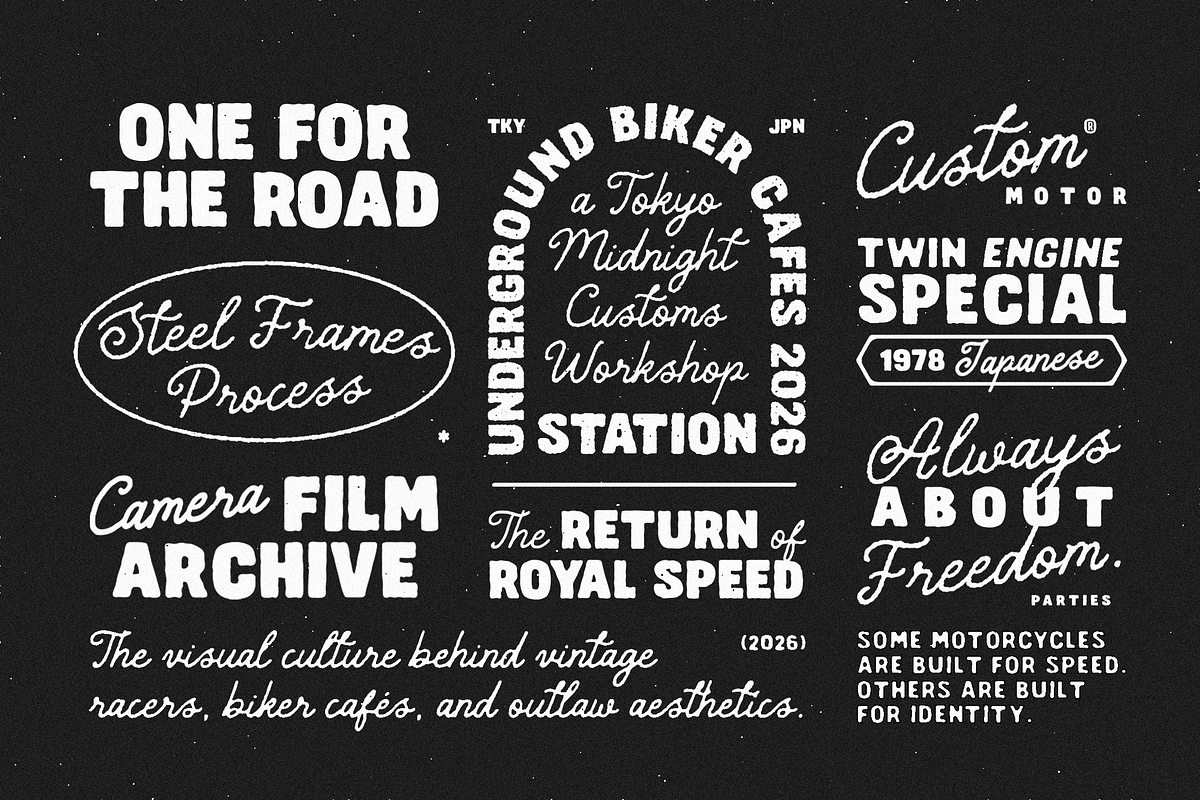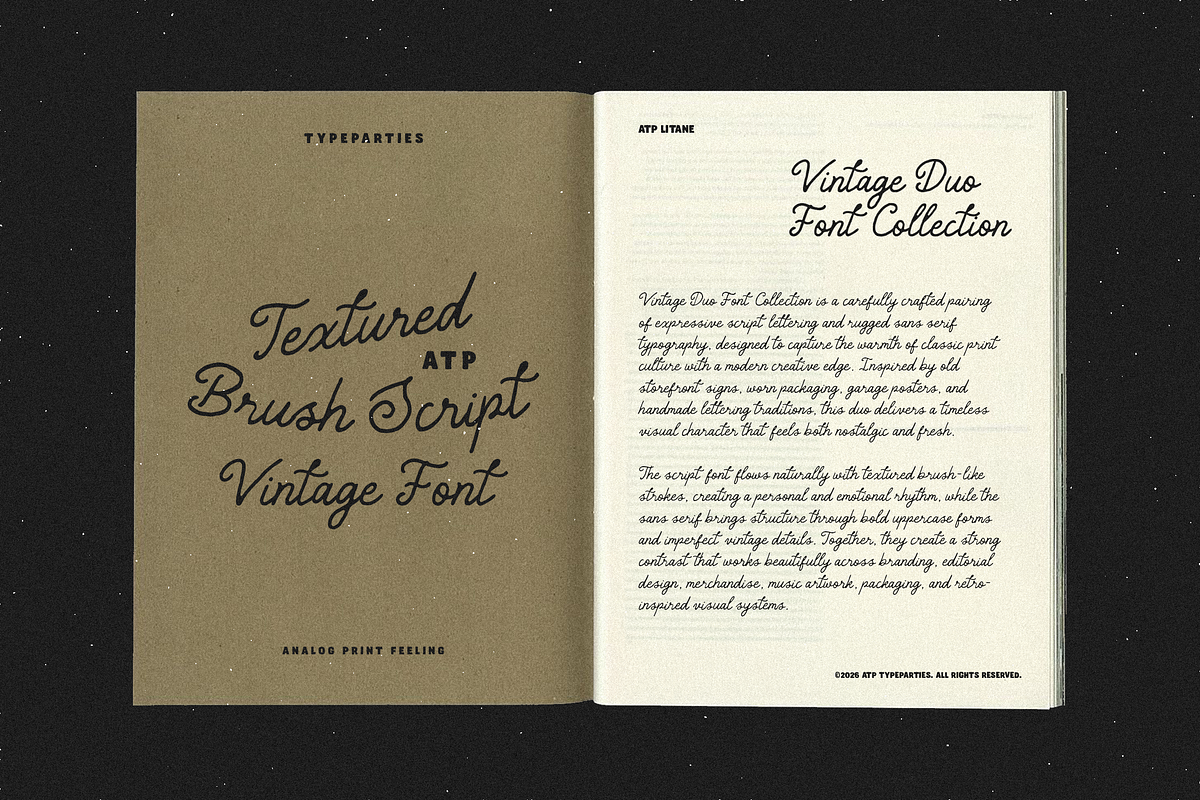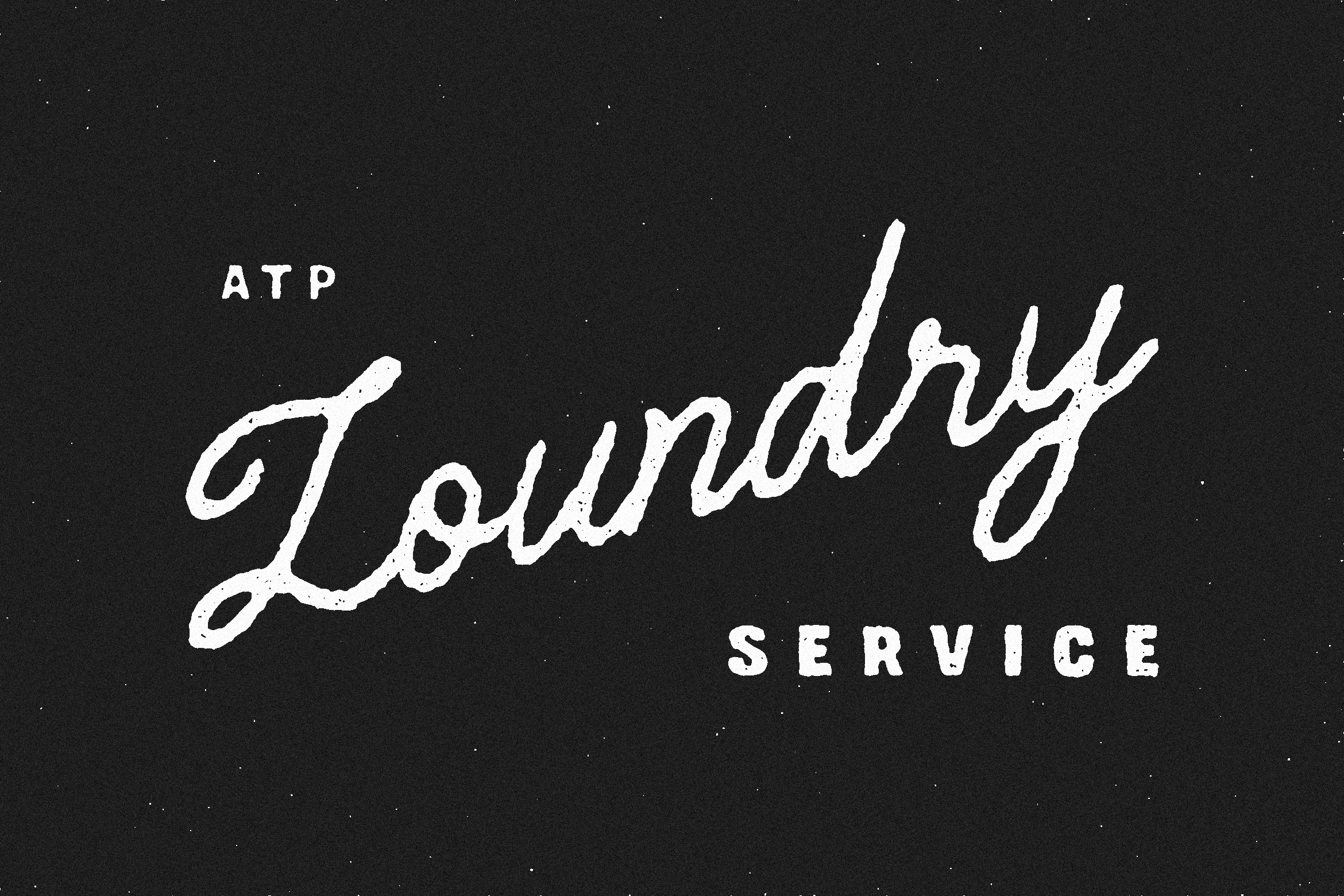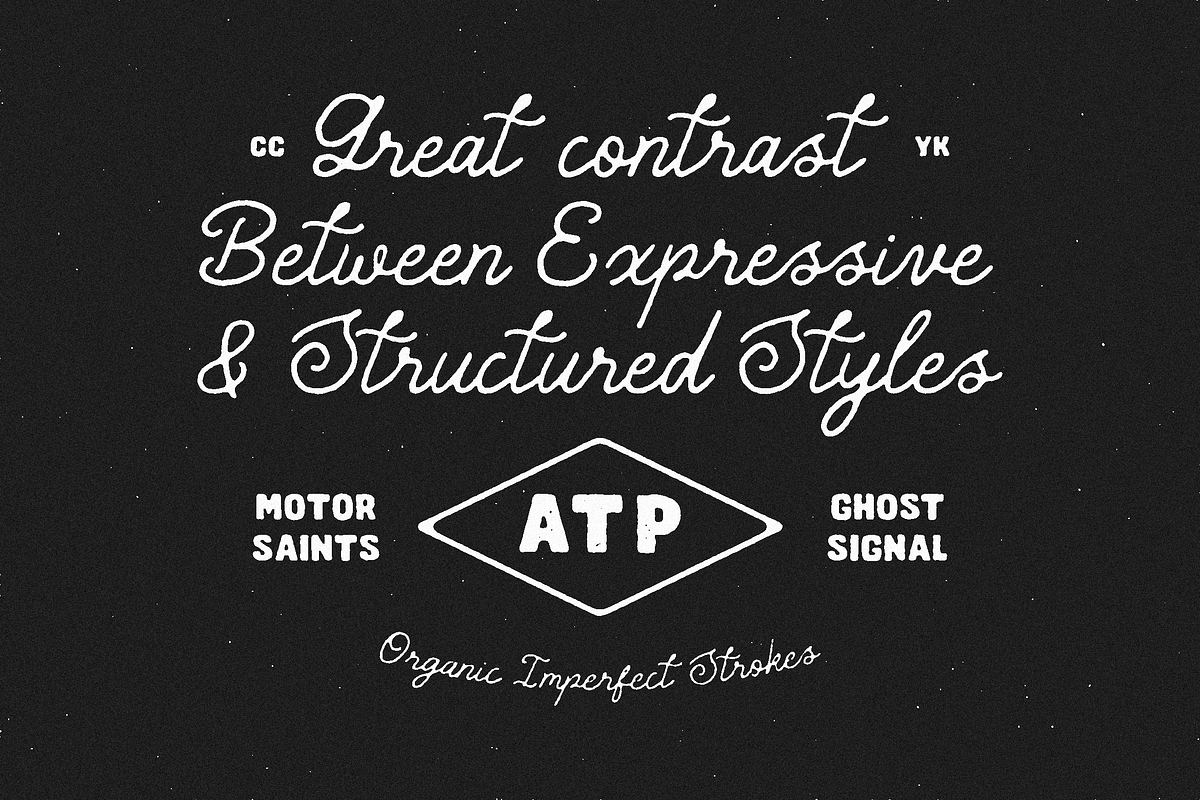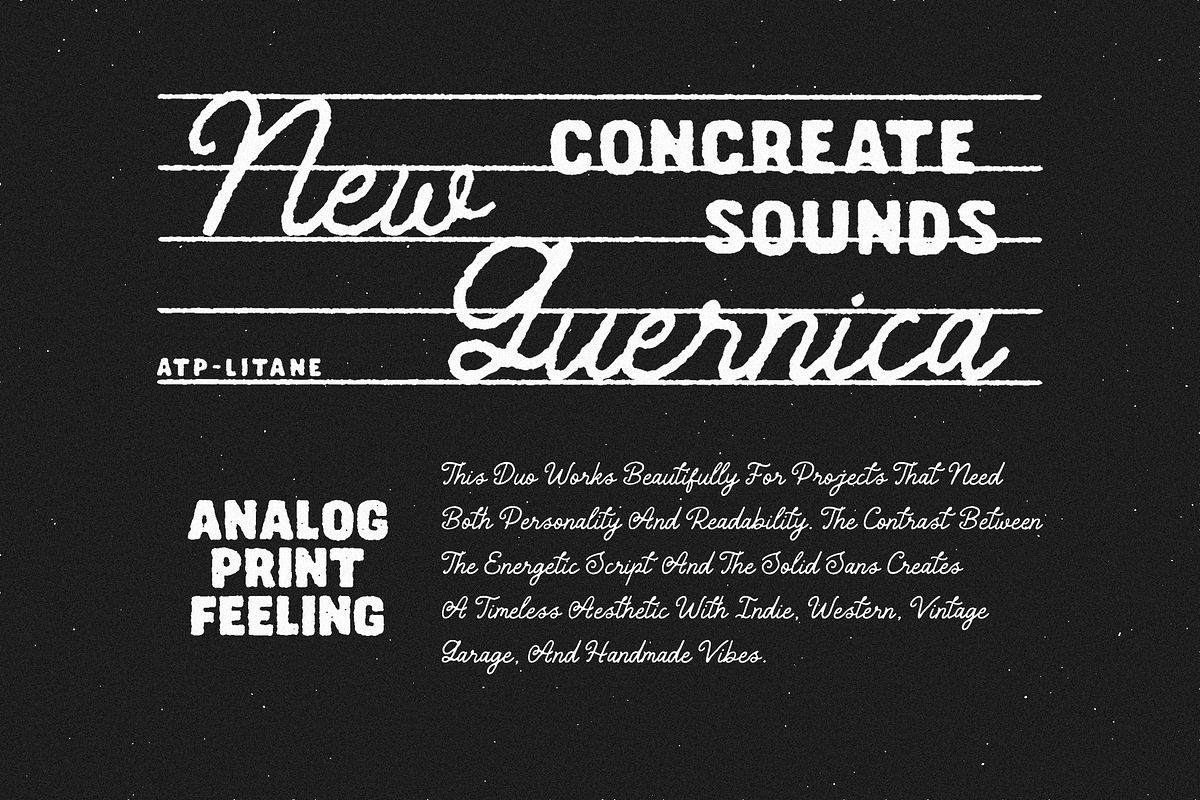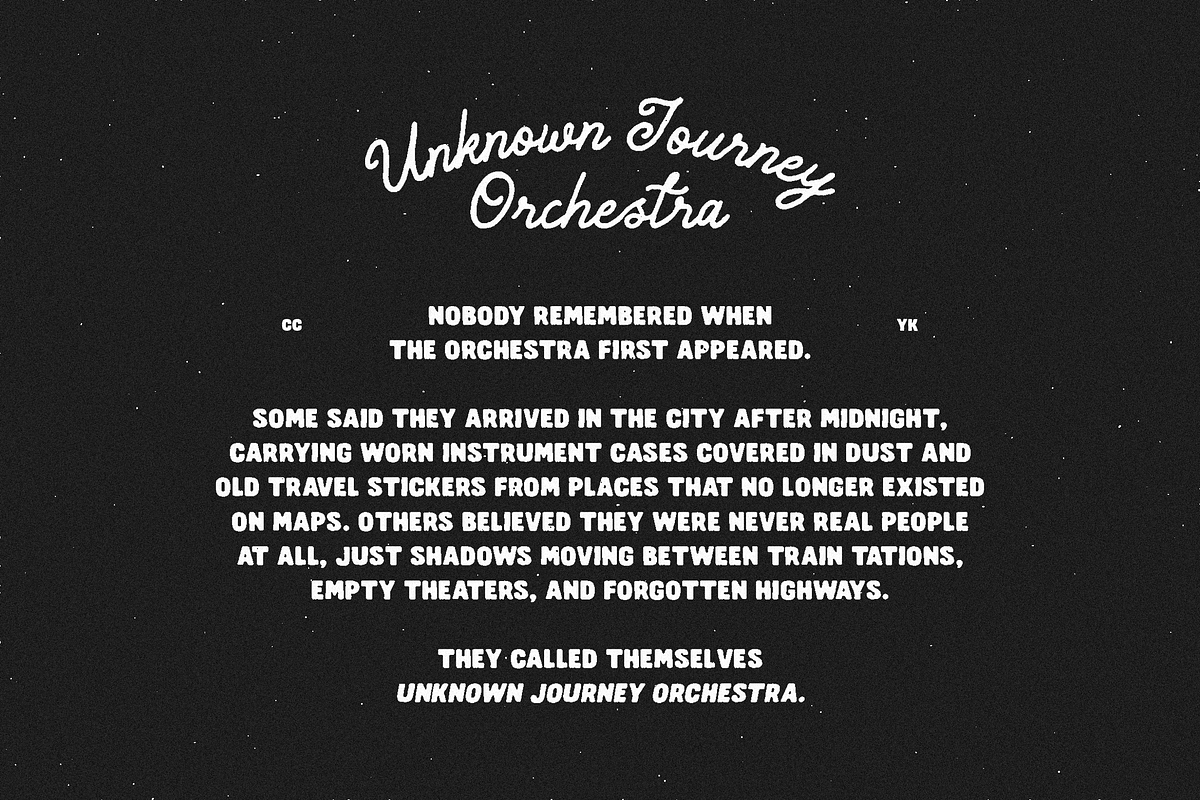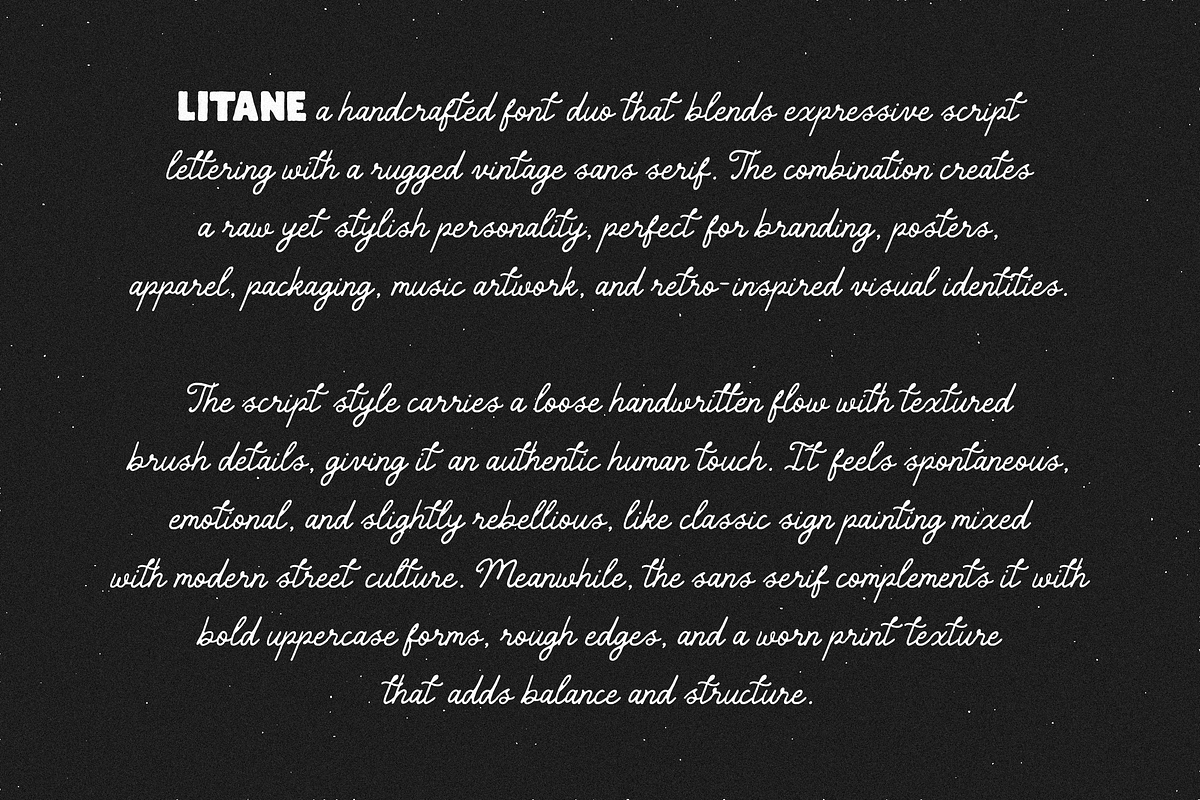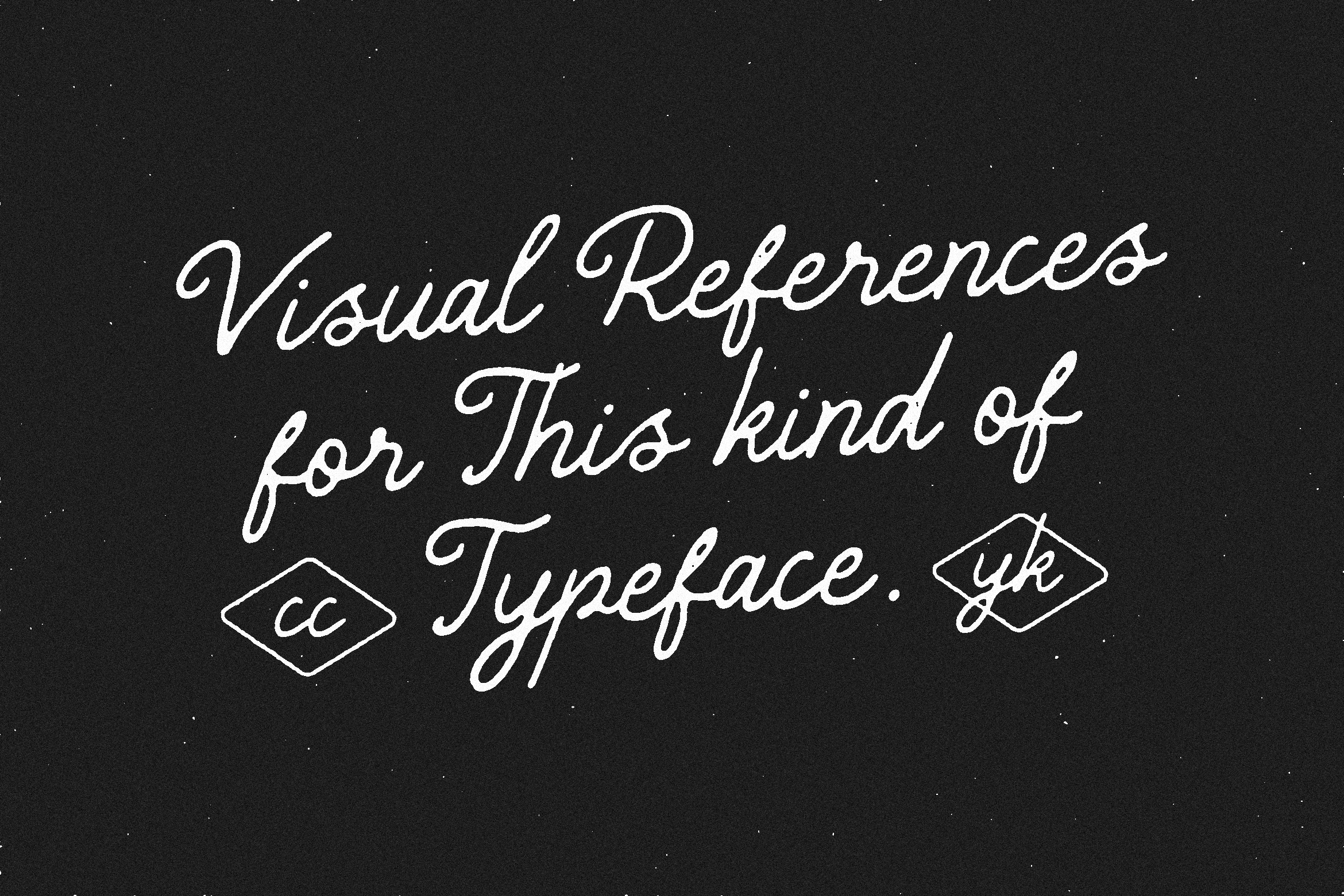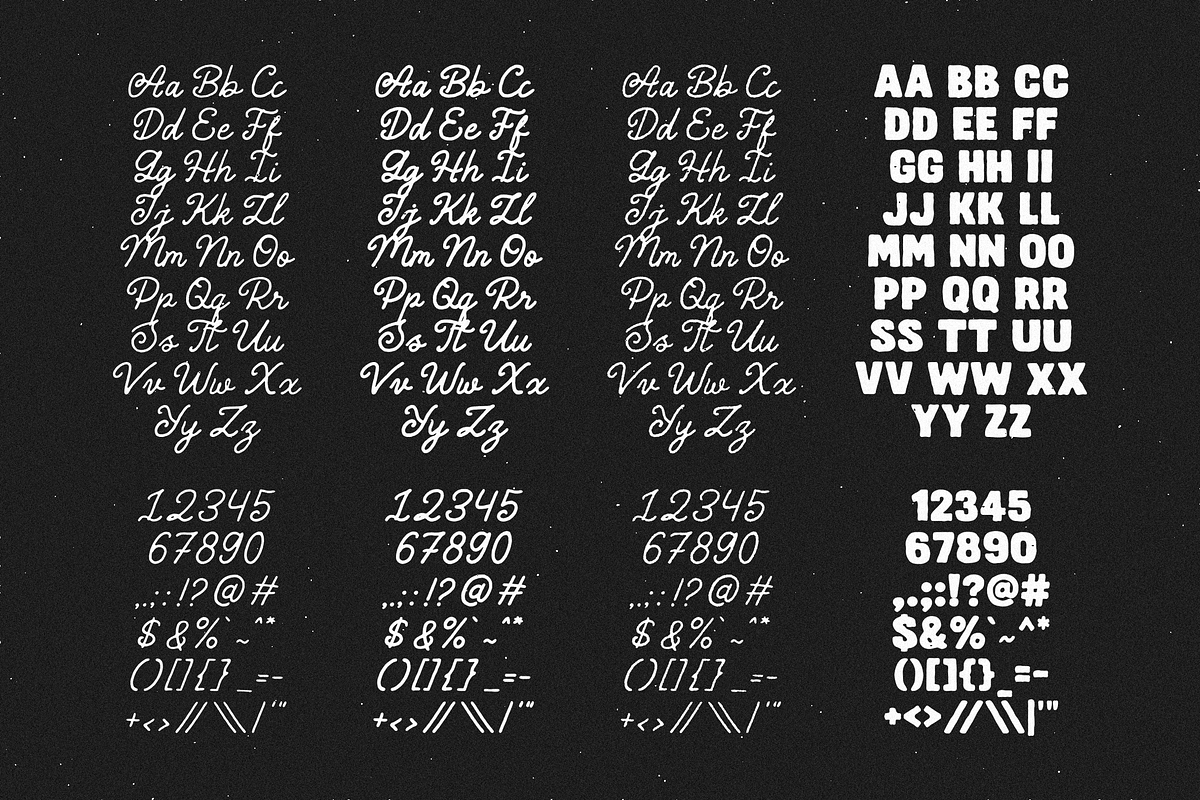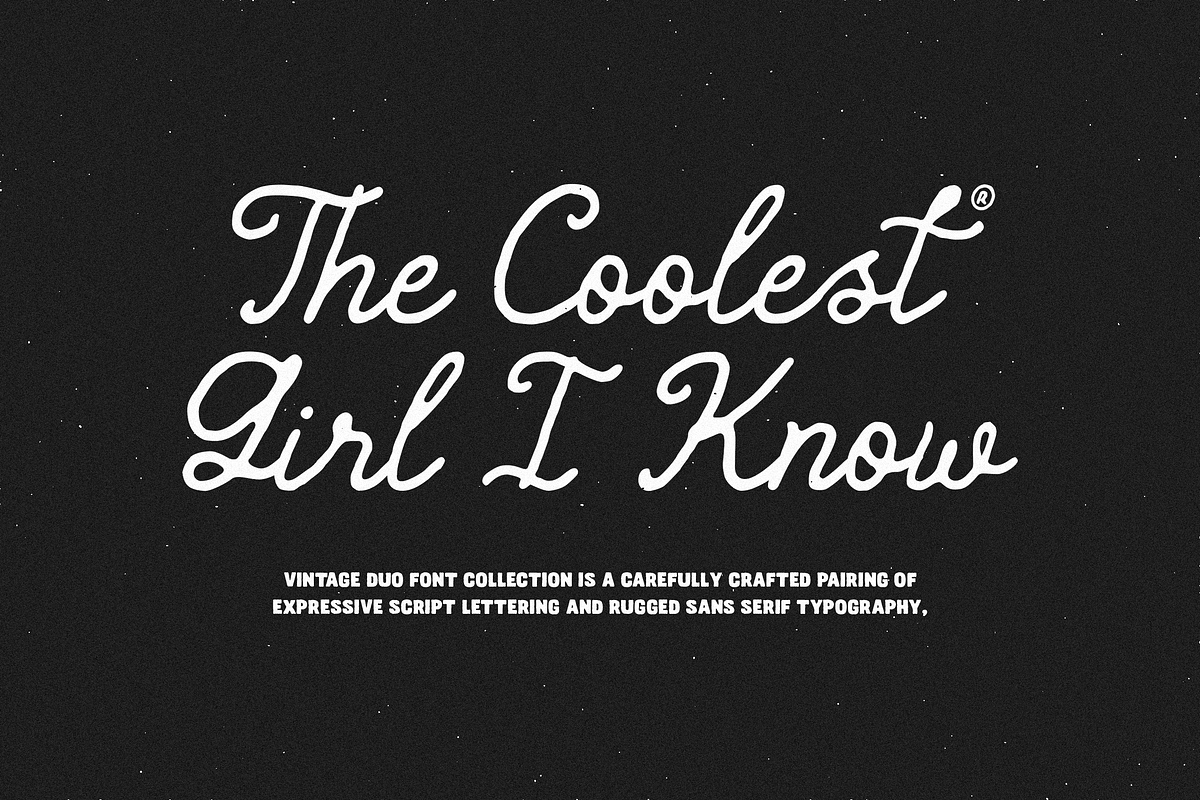
Litane - Handwritten Font Duo
Litane Font Duo bring a carefully crafted pairing of expressive script lettering and rugged sans serif typography, designed to capture the warmth of classic print culture with a modern creative edge. Inspired by old storefront signs, worn packaging, garage posters, and handmade lettering traditions, this duo delivers a timeless visual character that feels both nostalgic and fresh.
The script font flows naturally with textured brush-like strokes, creating a personal and emotional rhythm, while the sans serif brings structure through bold uppercase forms and imperfect vintage details. Together, they create a strong contrast that works beautifully across branding, editorial design, merchandise, music artwork, packaging, and retro-inspired visual systems.